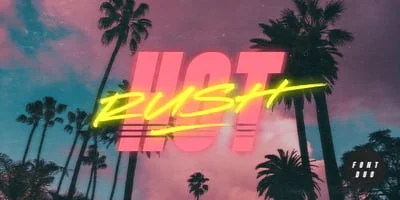
Hot Rush Font
Hot Rush Font is an exceptional choice for projects that demand speed, dynamism, and a distinctly retro-futuristic or 80s-inspired aesthetic. It's perfectly suited for vintage arcade game titles, neon-infused branding, synthwave music covers, energetic event posters, and any application where you want to evoke a sense of high-octane excitement, vibrant nostalgia, and cutting-edge style from a bygone era. Imagine it blazing across a movie poster from the past, adding a pulsating, electric feel to a retro gaming website, or giving a brand a unique, high-energy appeal that's both classic and cool. Its bold, often italicized forms and glowing presence ensure your message is conveyed with both immediate recognition and an undeniable sense of thrilling momentum.
What makes Hot Rush Font so exciting is its ability to instantly transport the viewer to an era of digital dreams and exhilarating experiences. It captures the essence of classic arcade machines and neon cityscapes, bringing a genuine, tangible feel to modern digital designs. This font isn't just about display; it’s about making a statement, grabbing attention, and conveying a sense of high-speed performance and stylish adventure. It's the ideal tool for designers looking to infuse their work with a unique historical context or a strong, electrifying appeal.
The Hot Rush Font family typically offers a range of weights and styles to provide robust design flexibility, often emphasizing its unique neon or motion-blurred effects. You might find a standard Regular weight that embodies its core energetic design, along with potential variations that enhance its visual impact, such as bolder versions for maximum emphasis or slight stylistic alterations that reinforce its dynamic character. These nuances ensure that Hot Rush Font can be the cornerstone of a truly unique and powerfully thematic visual identity, helping your designs stand out with an undeniable sense of character and unbridled, stylish force.